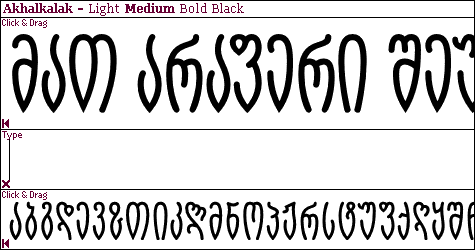
Akhalkalak (Georgian)
Akhalkalak is a one-of-a-kind display face. It achieves high visual harmony, but is also horizontally very economical for Georgian: taking a cue from the Latin blackletter style, Akhalkalak’s lower strokes are “broken”, allowing for very tight forms. This makes the design unconventional, but legibility is in fact maintained. Akhalkalak has 4 weights, two of which harmonize with Emigre’s Modula Round Sans typeface.